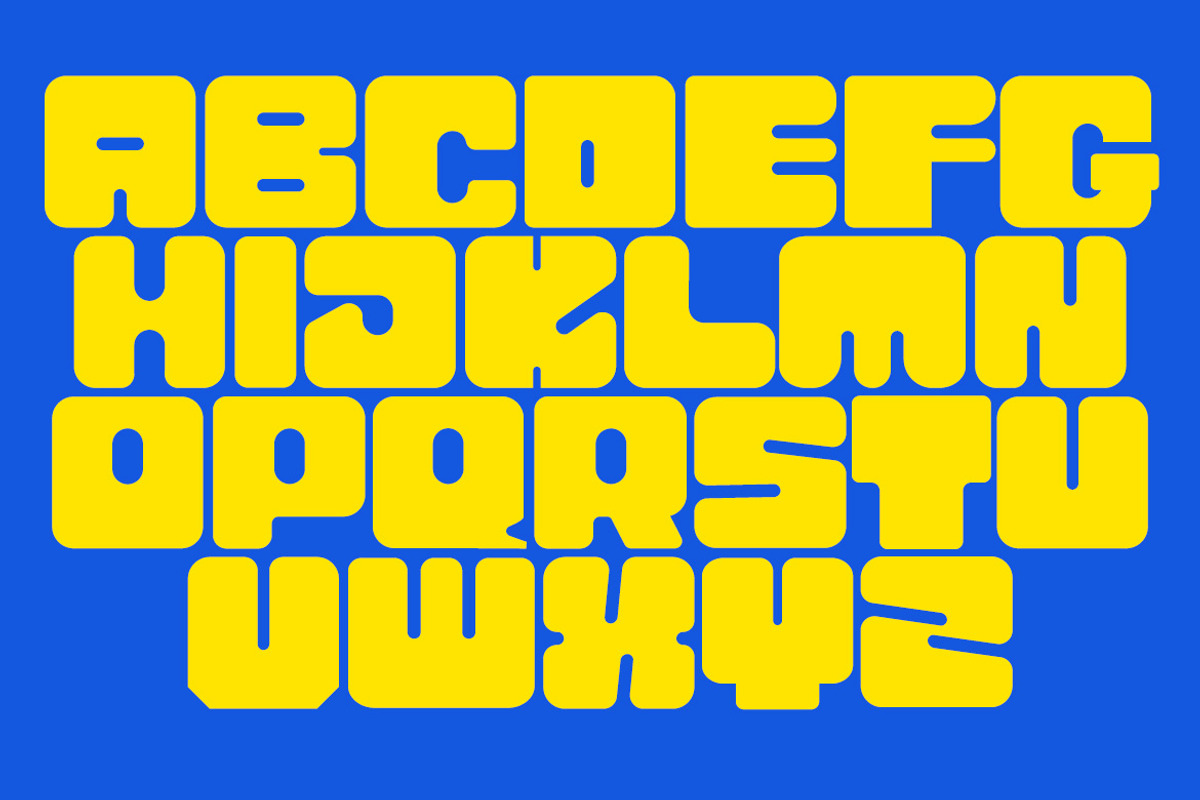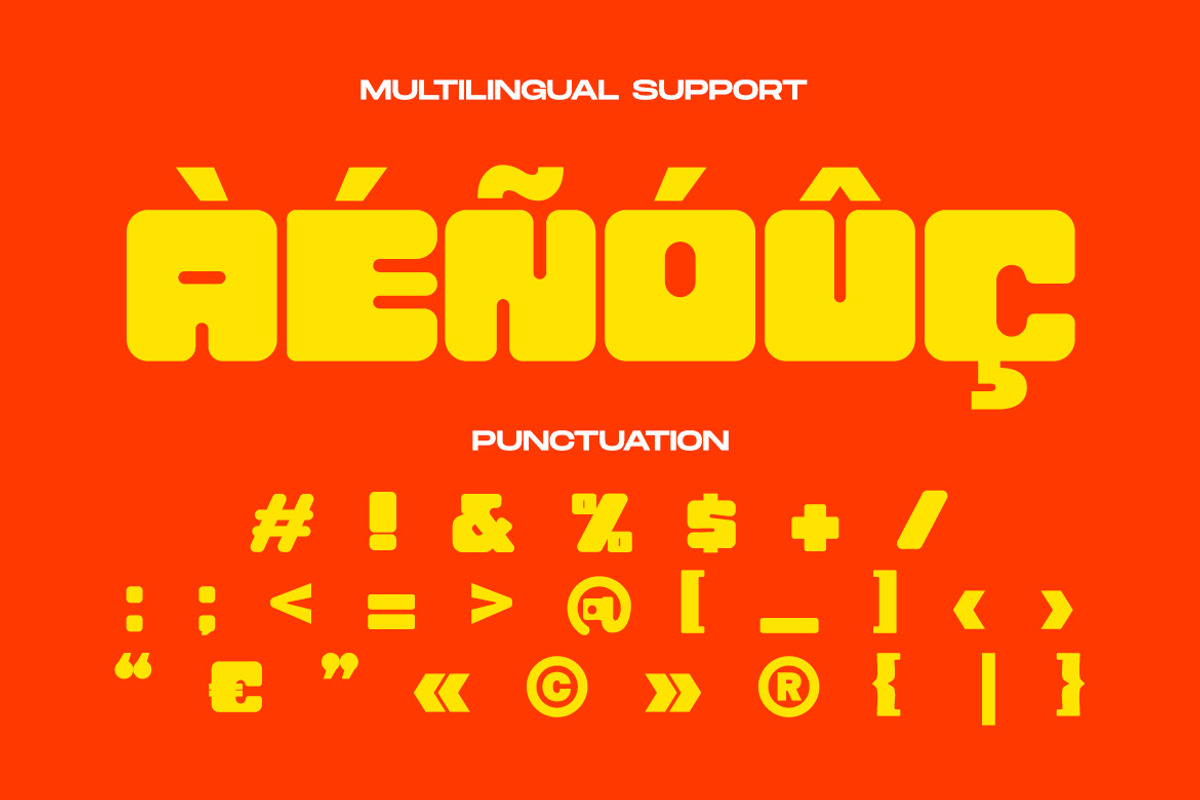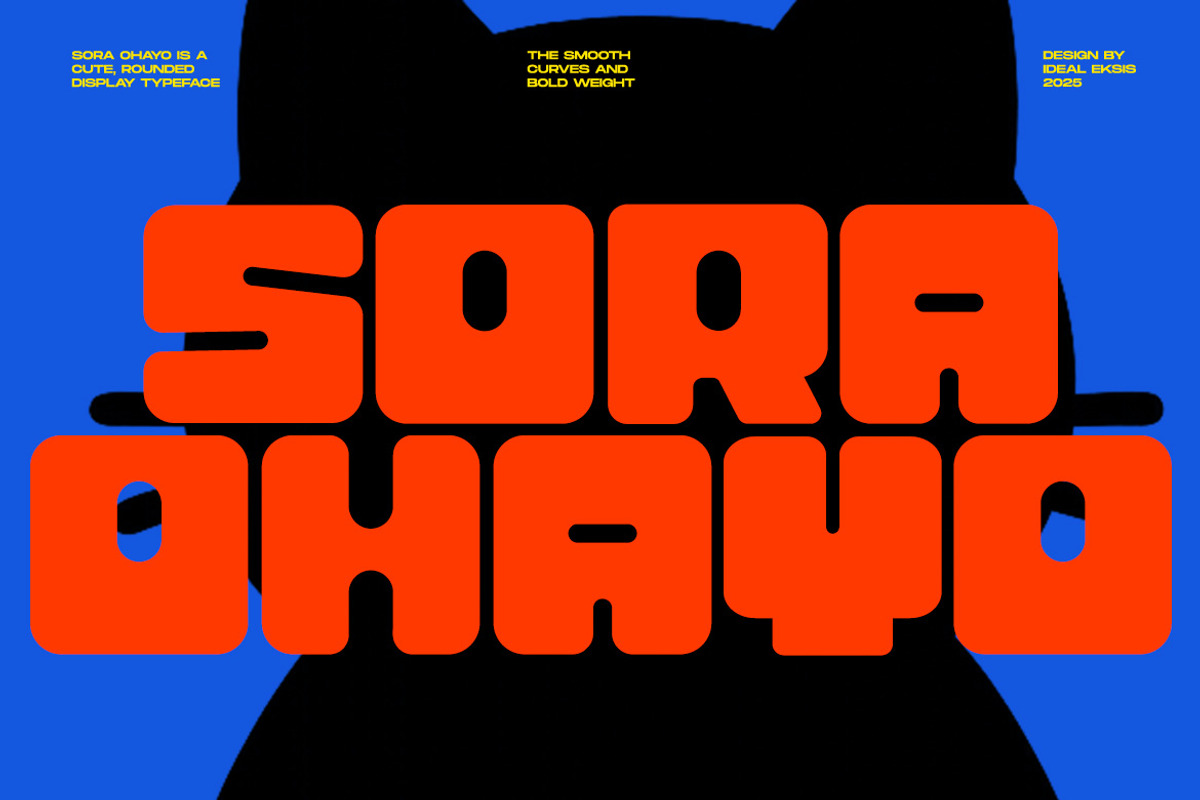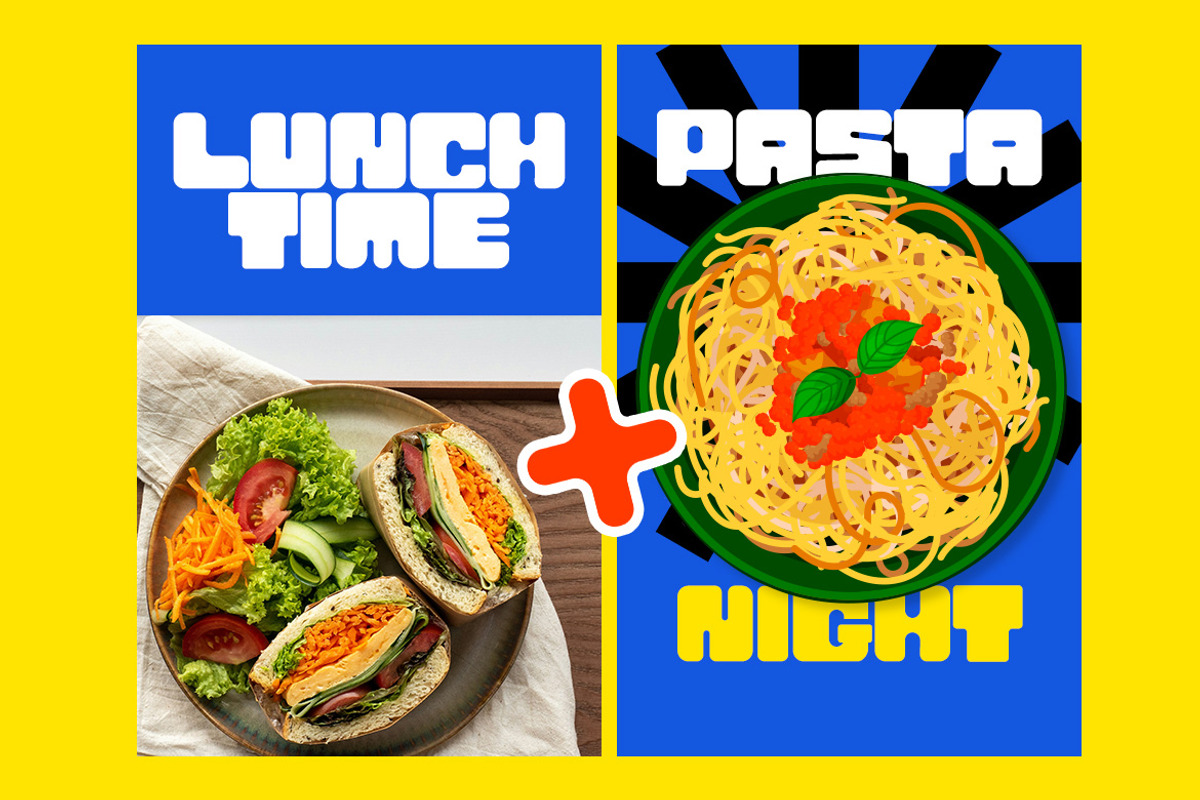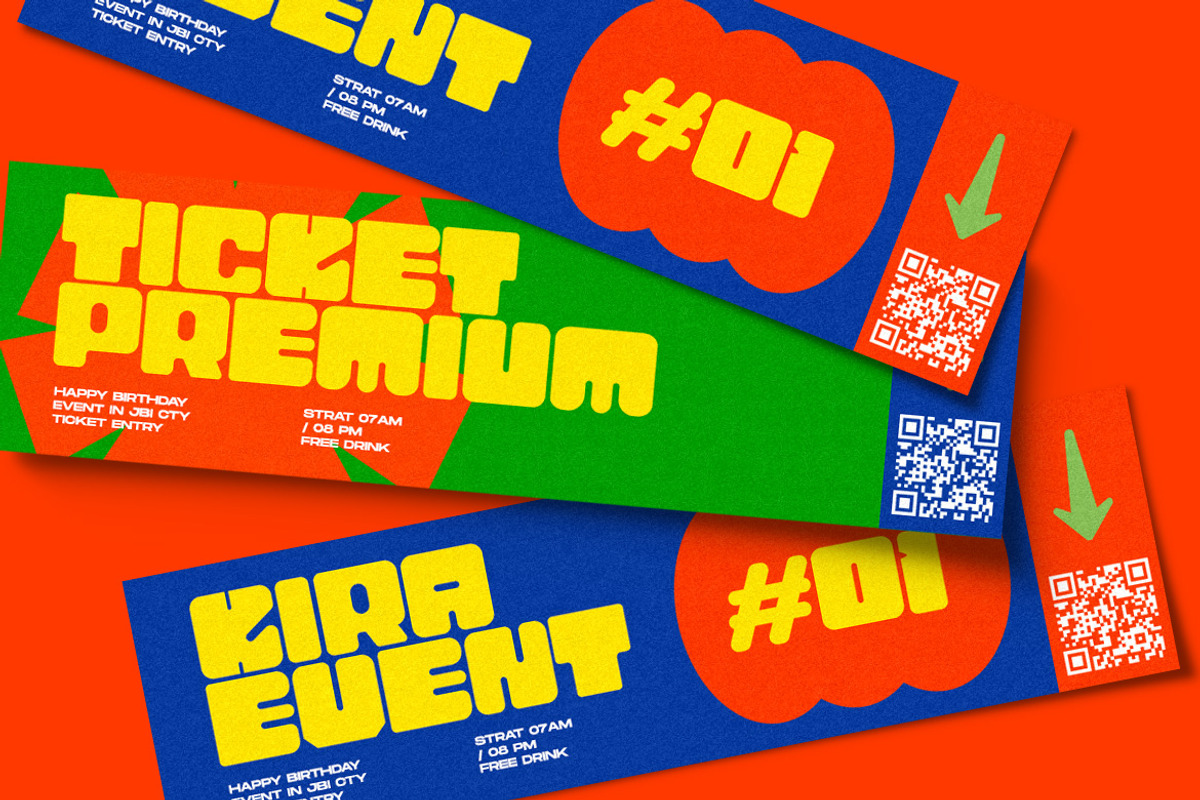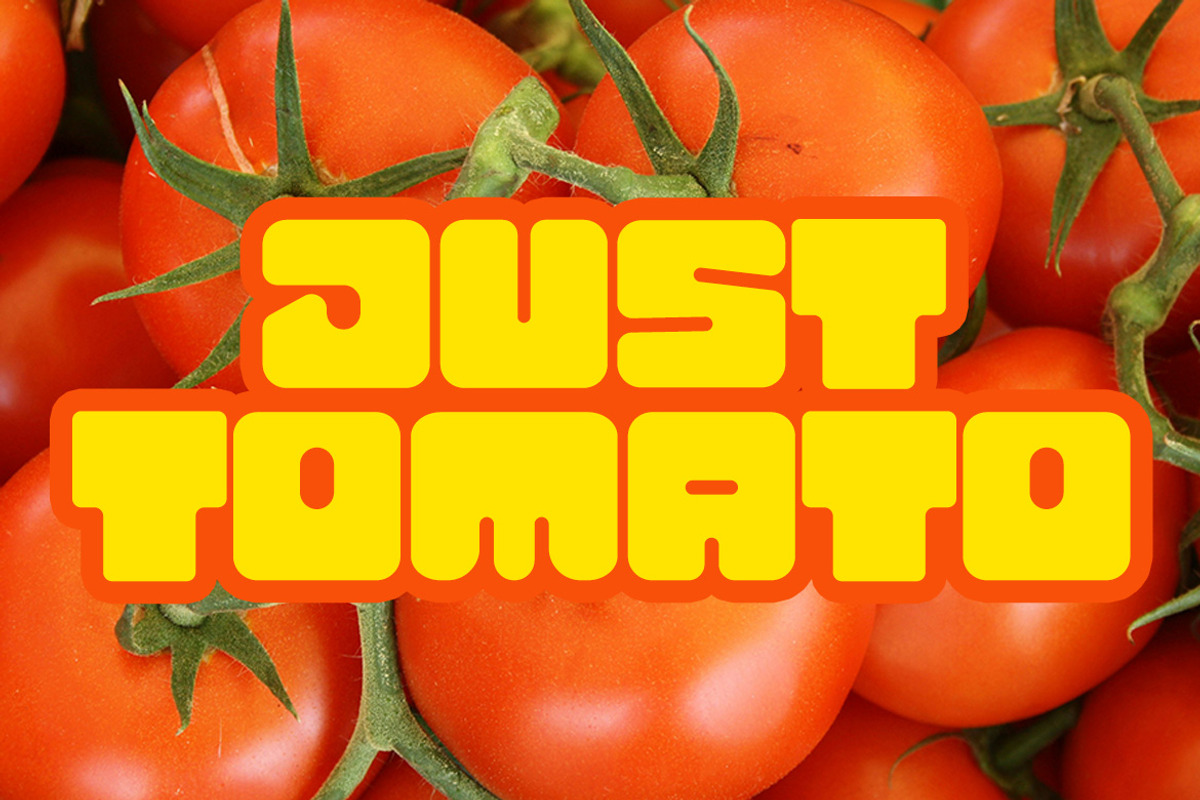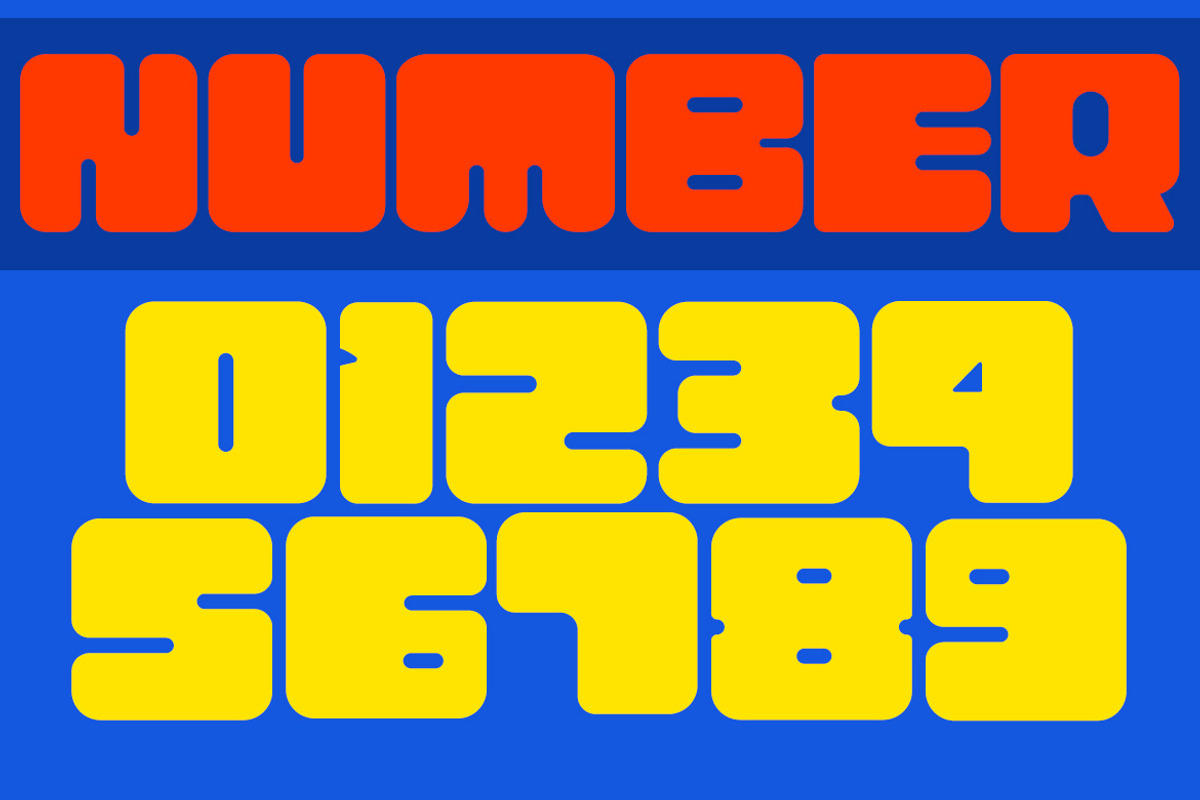
Sora Ohayo
SORA OHAYO is a cute, rounded display typeface inspired by soft shapes and playful cartoon aesthetics. With its chubby letterforms and friendly personality, this typeface is perfect for children’s books, kawaii branding, character merchandise, social media graphics, and any project that needs a warm, cheerful vibe. The smooth curves and bold weight make it highly readable while maintaining its charming, bubbly attitude.